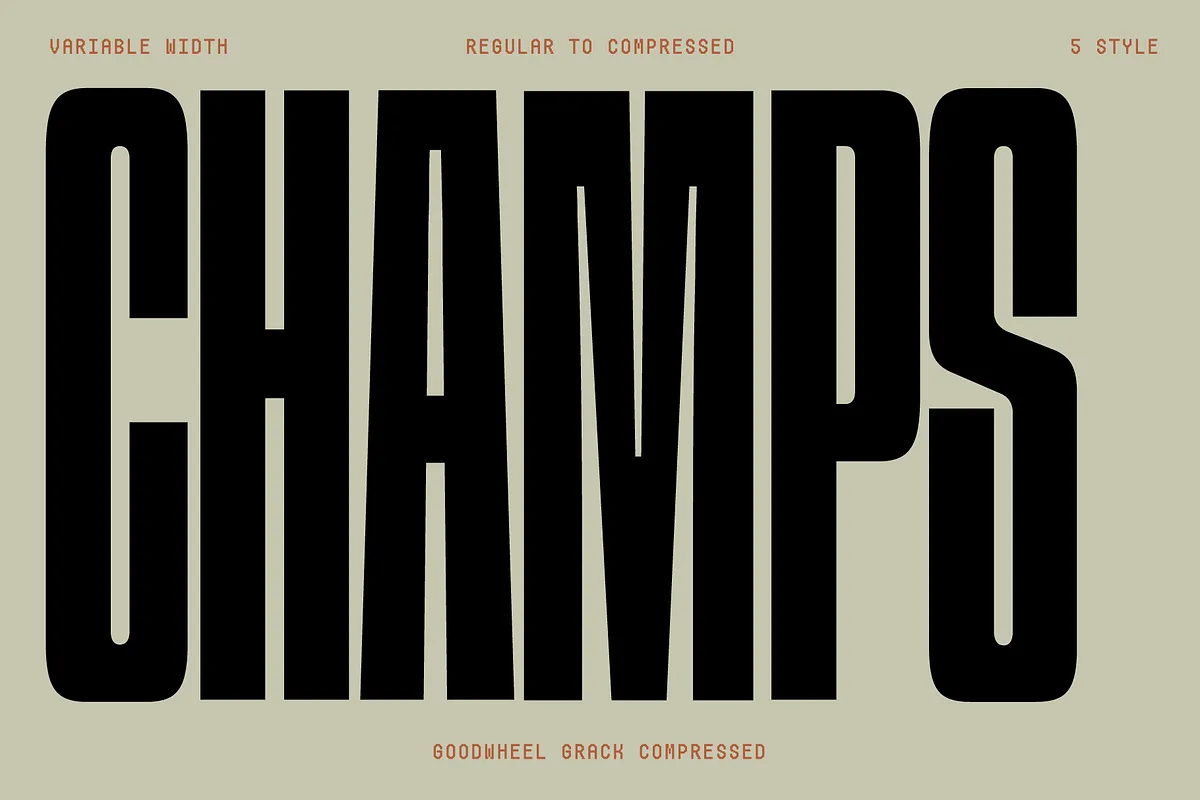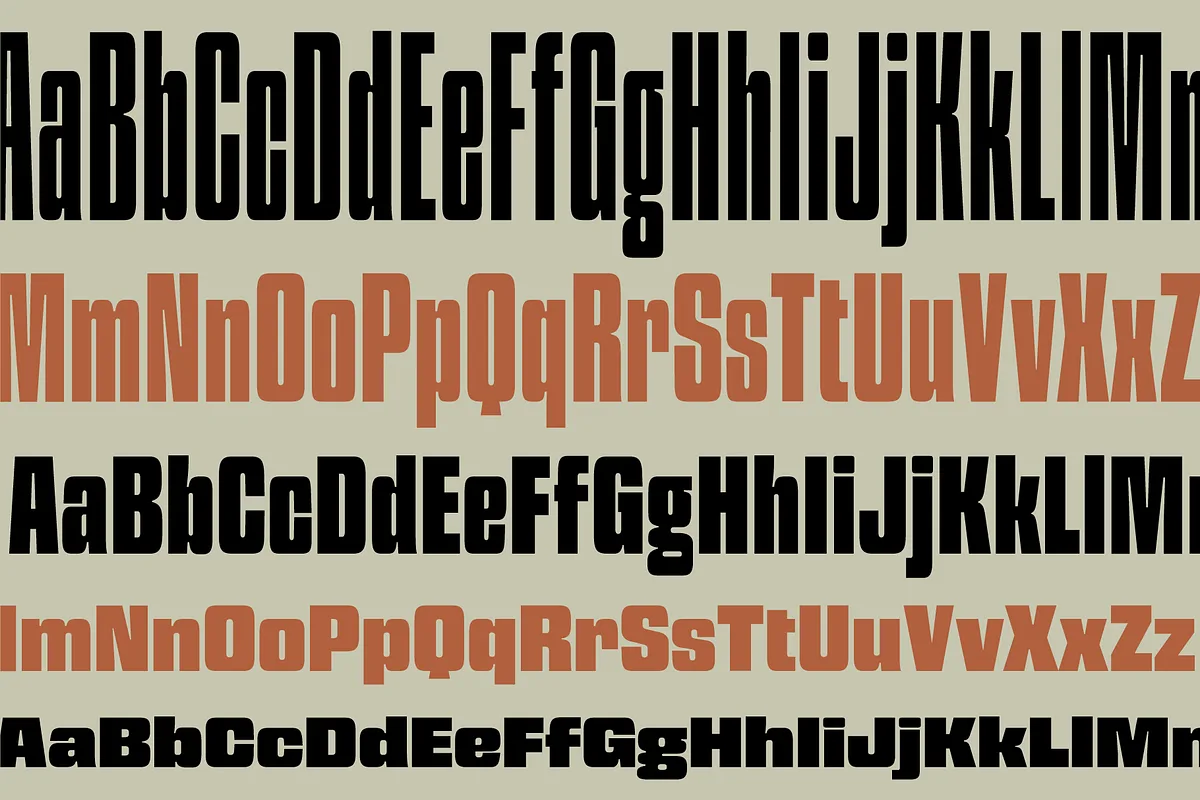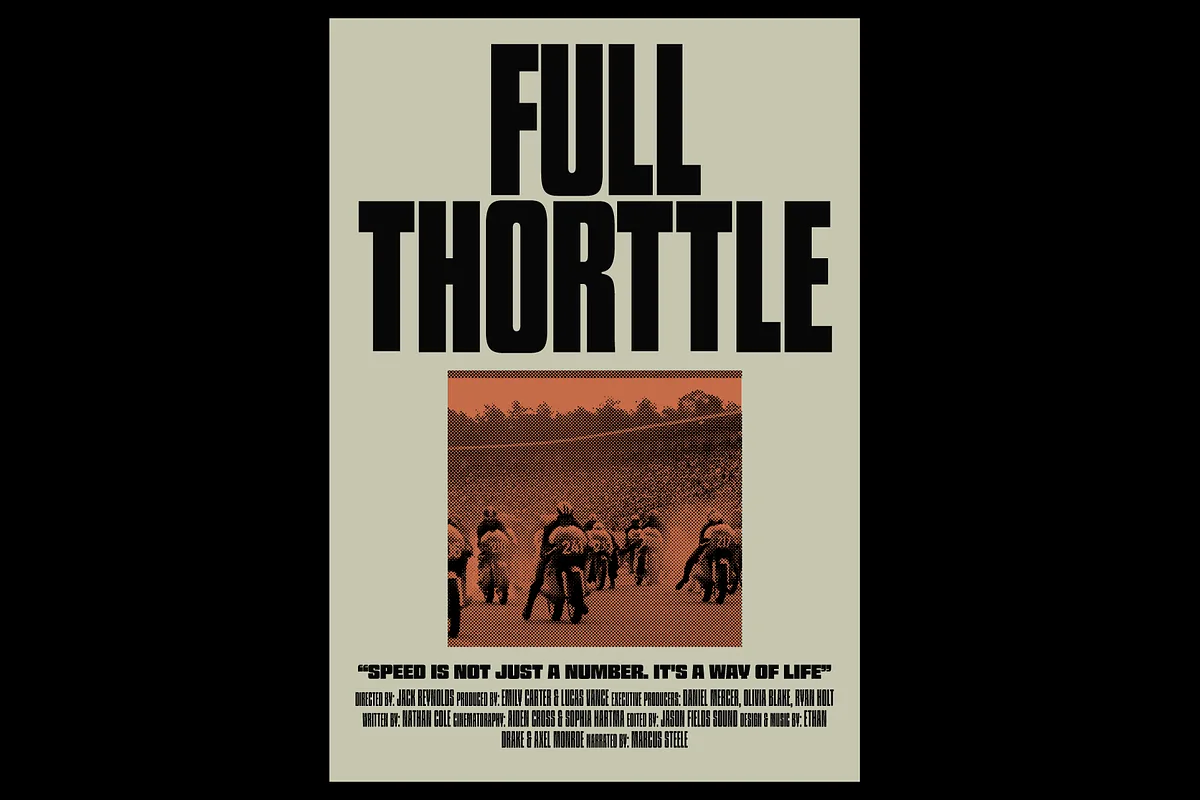
Ultrabold Squarist typefaces with variable width compress to regular. a typeface with a bold and modern design, featuring very thick characters and rigid geometric shapes.